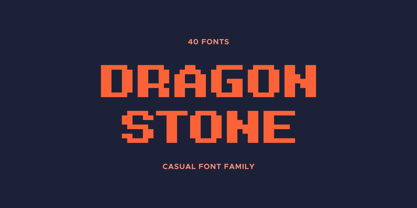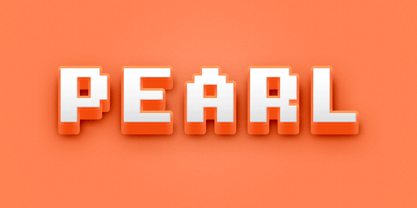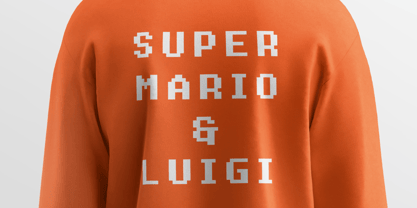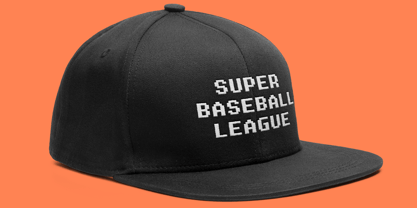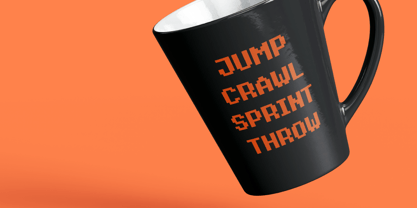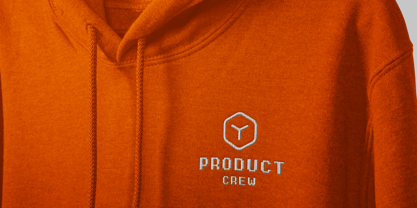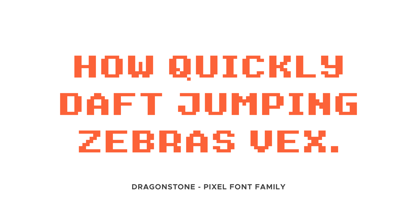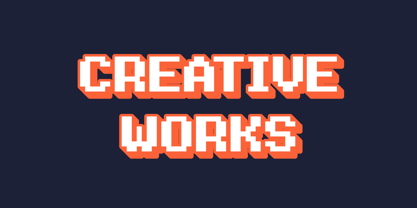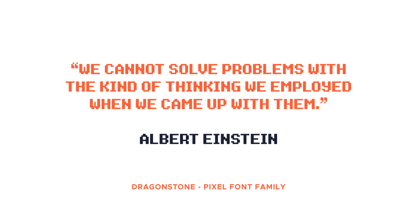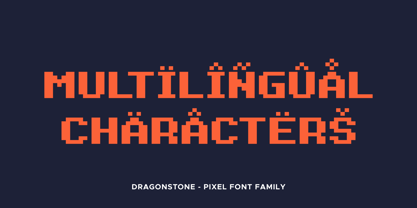
Dragonstone is a rugged pixel typeface that blends retro bitmap aesthetics with raw, hand-crafted texture. Designed to feel both digital and worn, it brings the look of weathered stone, scratched metal, and ink-stained lettering into a structured pixel grid.
The family includes a wide range of expressive styles, from clean Regular and Italic to heavily distressed variants like Rust, Scratch, Worn, Grit, and Eroded. Each style also includes matching Outline and Italic versions, allowing designers to build layered, textured typography with depth and character.
Brush and Ink styles add a rough, painted feel, while Cut and Rough introduce sharper, carved-like edges that enhance the gritty pixel personality of the typeface. These variations make Dragonstone flexible for creative compositions while maintaining its distinctive pixel foundation.
Dragonstone works perfectly for retro game visuals, fantasy themes, posters, album covers, streaming graphics, branding, packaging, and digital artwork. Its distressed pixel forms give designs a bold, dramatic presence while keeping the nostalgic charm of classic bitmap fonts.
With extensive language support covering 89 languages, Dragonstone is suitable for a wide range of international projects. Whether you want clean pixel typography or layered, textured display lettering, Dragonstone offers a powerful toolkit for bold visual storytelling.
Dragonstone